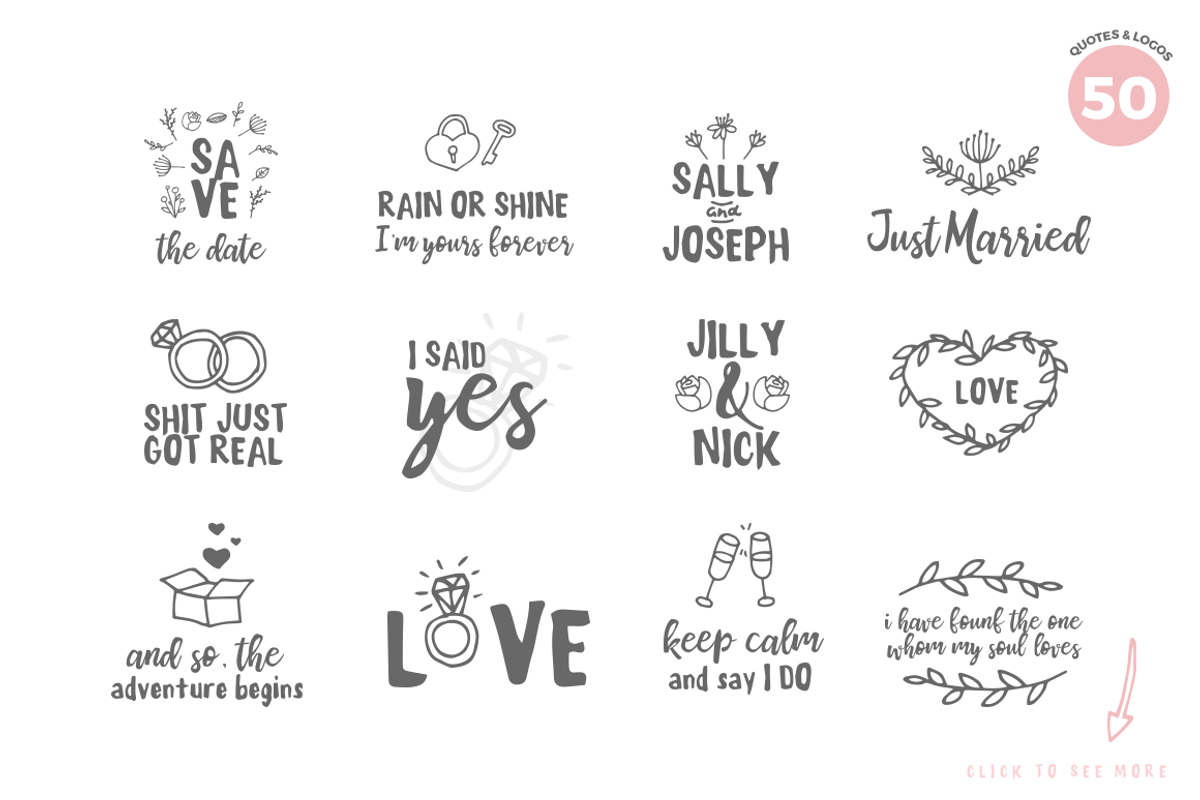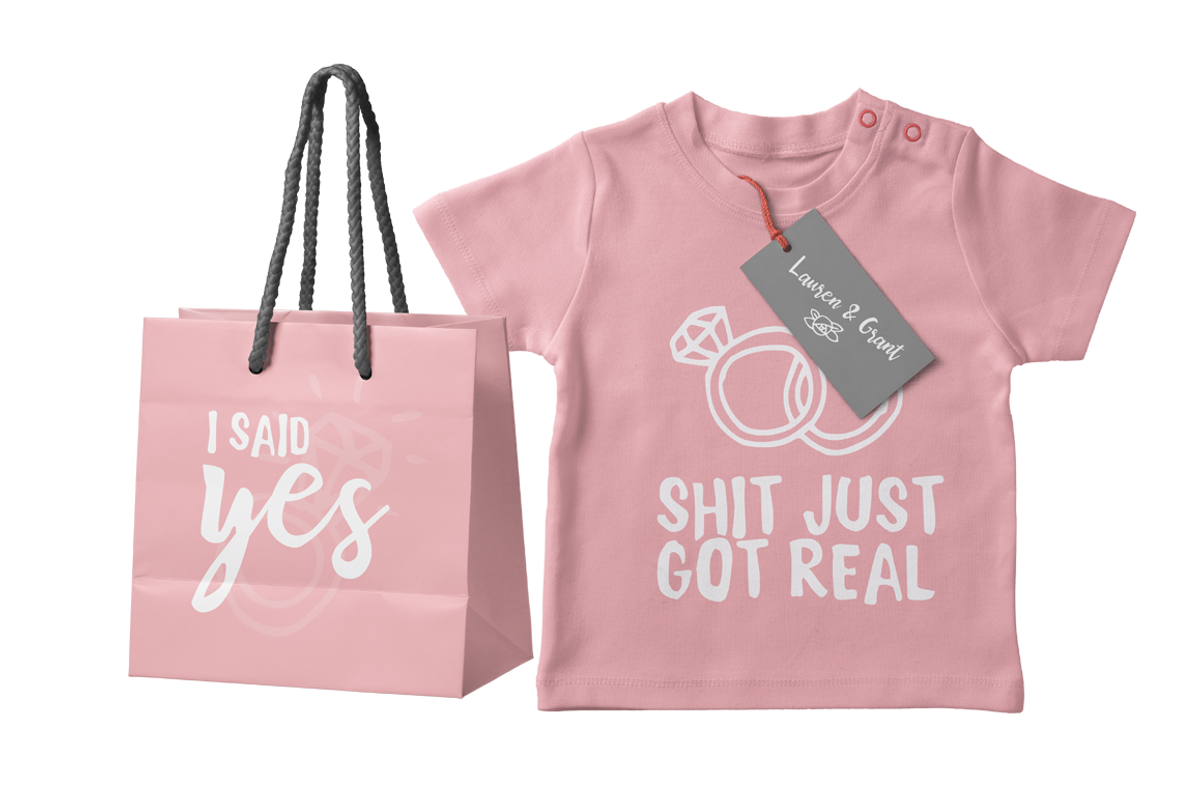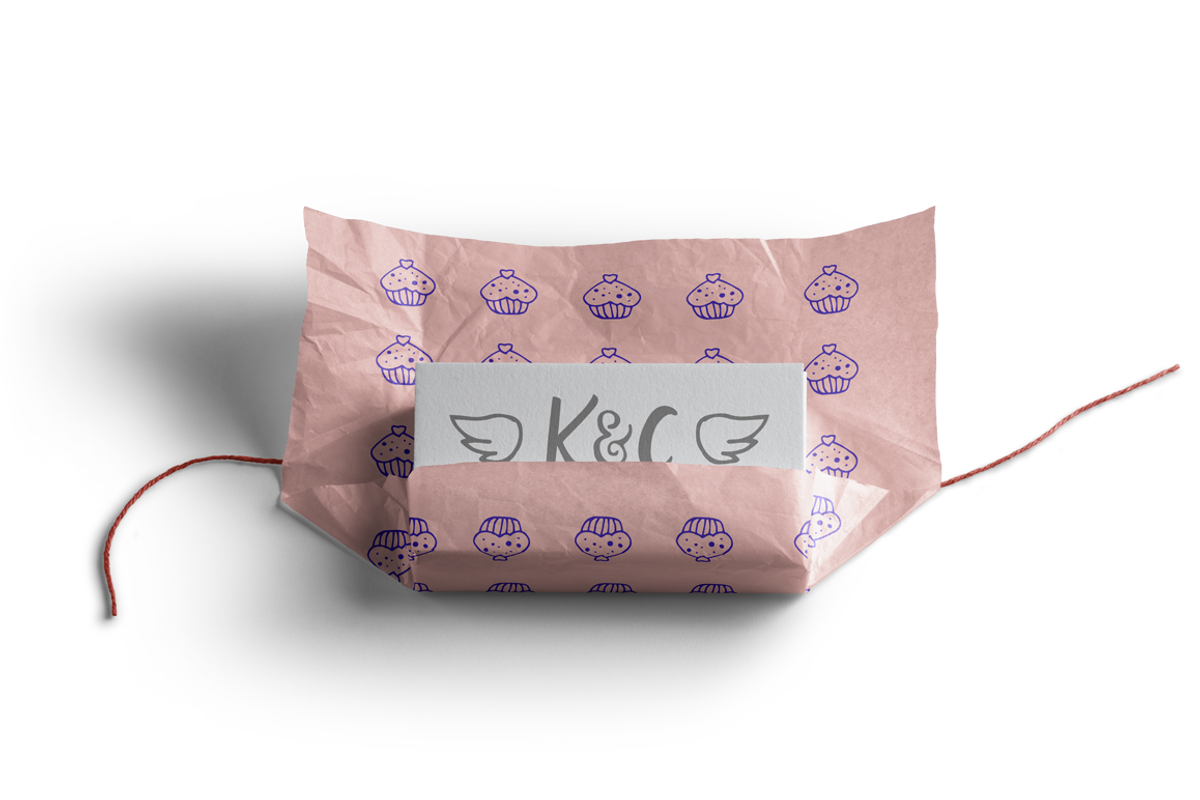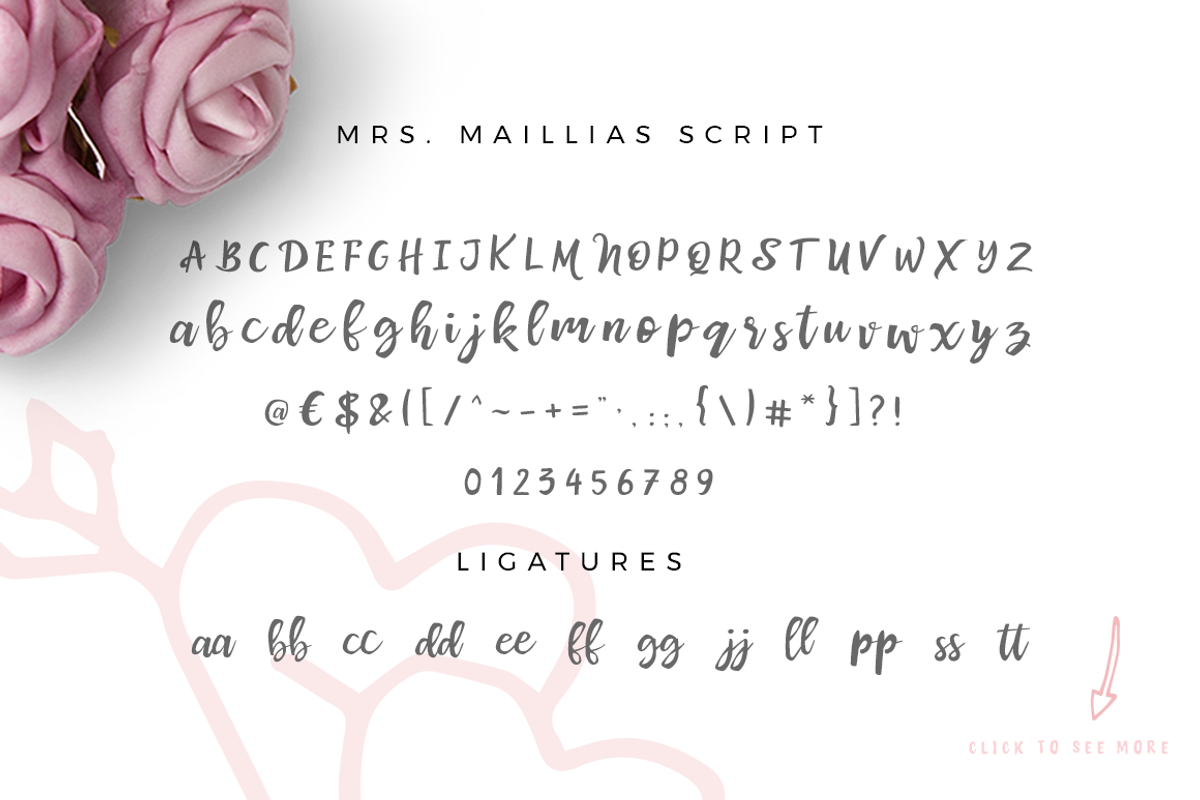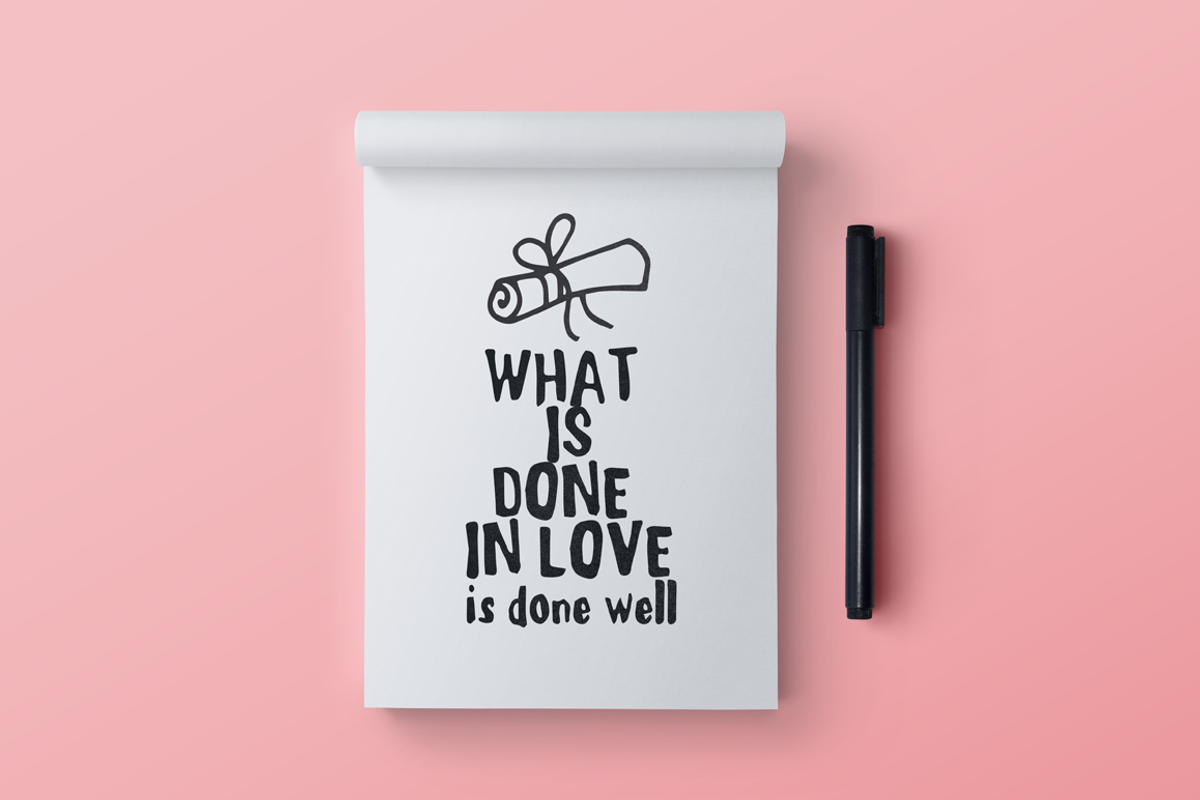
Mrs Maillias Duo Font & Doodles
Mrs Maillias is a beautiful handmade font duo designed for cards, wedding invitations, t-shirt design, logos, quotes design etc.
Mrs. Maillias Script comes with uppercase, lowercase, basic characters, standard numbers and punctuation + ligatures. Mrs. Maillias Sans comes with uppercase, lowercase, basic characters, standard numbers & punctuation.
Mrs Maillias also includes 50 free premade logo templates, over 250 illustrations to mix and mach to make your own logo combinations.
- Maillias Script comes with uppercase, lowercase, basic characters, standard numbers and punctuation + ligatures.
- Maillias Sans comes with uppercase, lowercase, basic characters, standard numbers & punctuation.
- MAKE YOUR OWN LOGOS Mrs Maillias also includes 50 free premade logo templates, over 250 illustrations to mix and mach to make your own logo